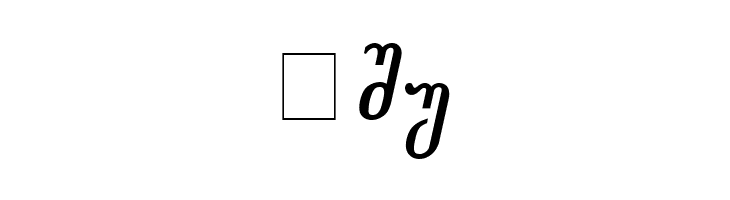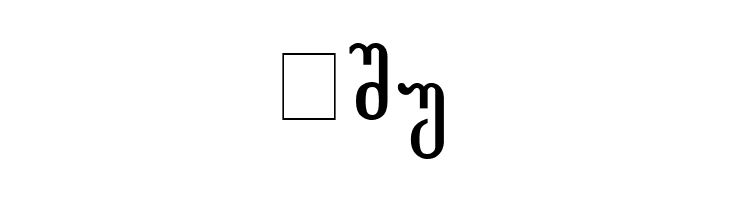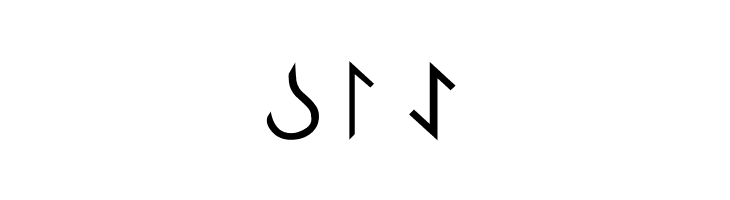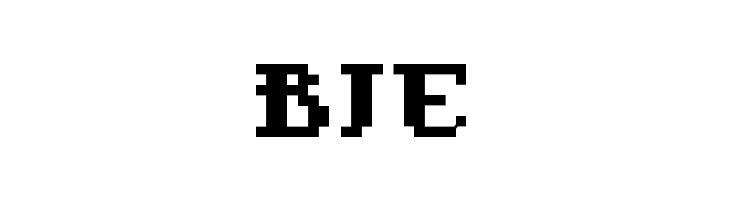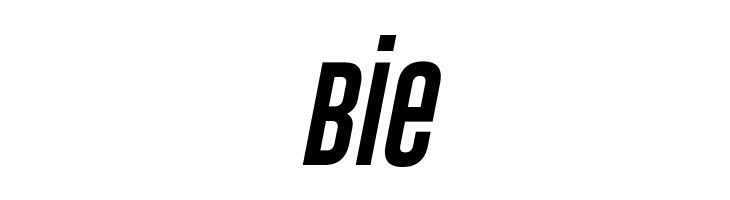
• Gobold Uplow Italic Italic
A bold, italic, and condensed font with a modern and dynamic style.
• Gogebashvili-ITV
• Gogebashvili-ITV Bold
• Gogebashvili-ITV Bold Italic
• Gogebashvili-ITV Italic
• GokturkUnicodeFont
• Gold Box
A bold, pixelated font with a retro, digital aesthetic.
• Golden Moment
A modern, elegant script font with flowing, cursive letters.
• Goldena
A fluid, cursive script font with elegant, interconnected letters.
• GoldenLights
A bold, textured font with a halftone effect, ideal for creative projects.